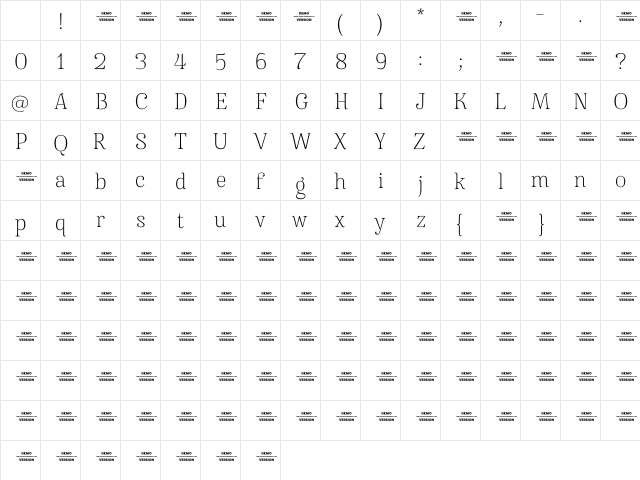
Famosa is a composed and adaptable typeface that performs quietly and consistently across a wide range of design contexts. Its slender proportions lend an understated elegance to any composition.